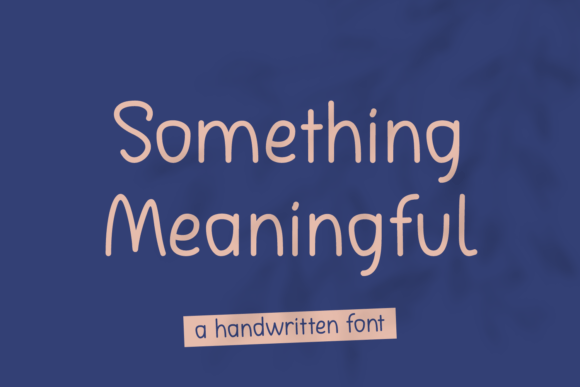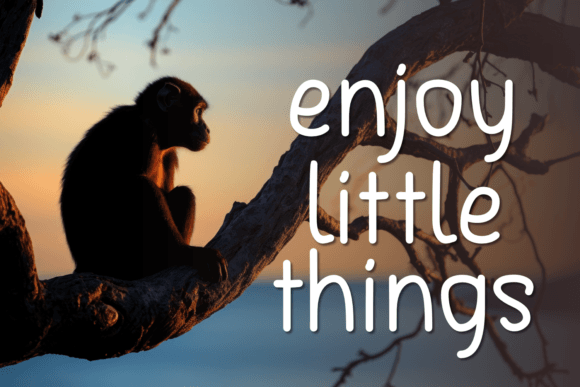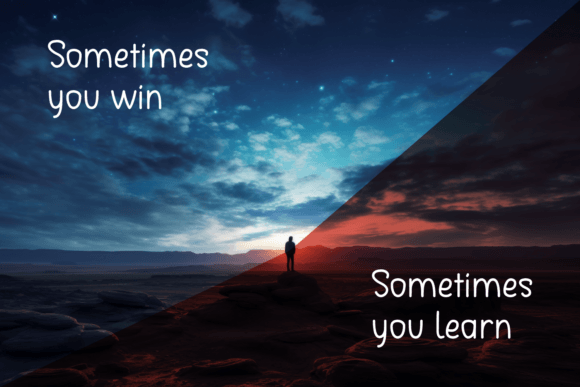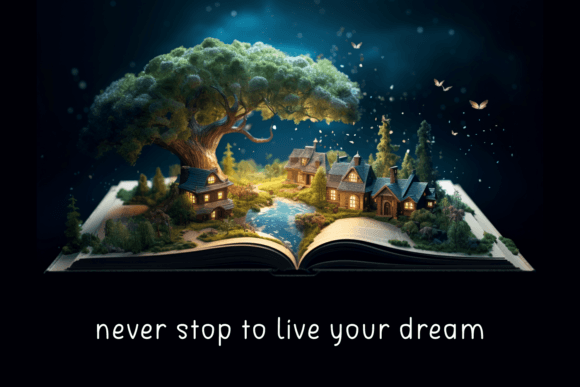
Something Meaningful is a lovely handwritten font that adds a personal touch to your projects. With its gentle curves and smooth lines, it brings warmth and sincerity to any text. Perfect for invitations, cards, or anything where a touch of friendliness is needed. Choose Something Meaningful for a handwritten charm that makes your words feel personal and genuine.
Something Meaningful Font